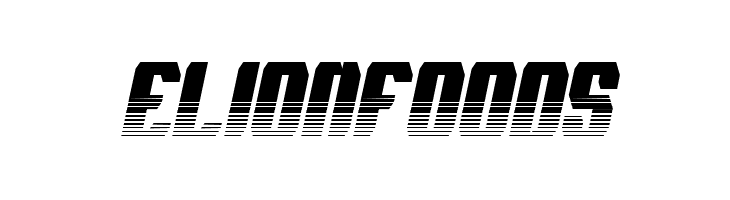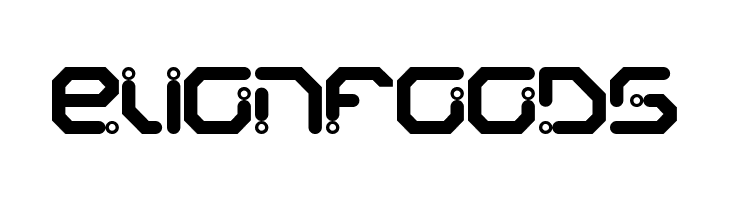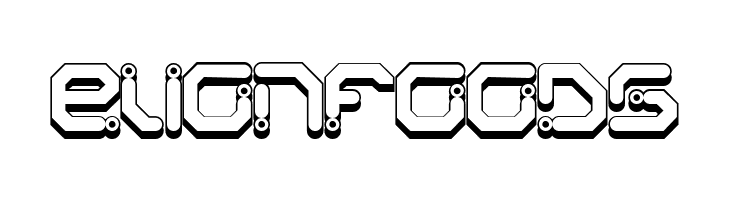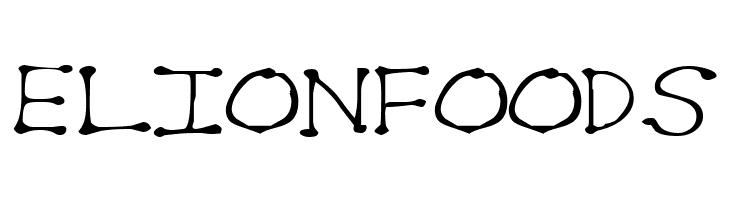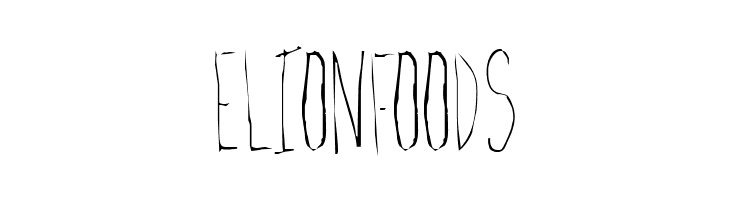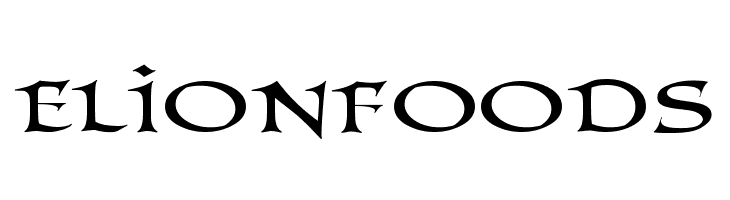
( Fonts by Paul Reid - tracertong.co.uk )
A bold, futuristic font with a distinctive striped pattern and geometric style.
( Fonts by Paul Reid - tracertong.co.uk )
A bold, italic, futuristic font with dynamic horizontal lines.
( Fonts by Paul Reid - tracertong.co.uk )
A futuristic, circuit-inspired font with bold, geometric shapes.
( Fonts by Paul Reid - tracertong.co.uk )
A futuristic, geometric font with bold lines and shadow effects.
( Fonts by Andy Krahling - Sunwalk )
A playful, dotted-line font with bold, rounded characters.
( Fonts by Andy Krahling - Sunwalk )
A whimsical, hand-drawn font with elongated, narrow characters and uneven strokes.
( Fonts by Peter Rempel - www.prfonts.com )
A classic, calligraphic font with sharp serifs and elegant curves.